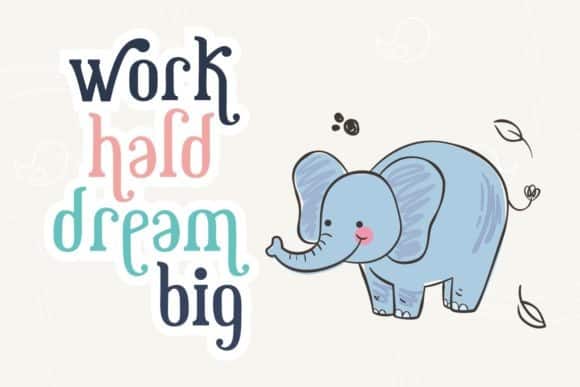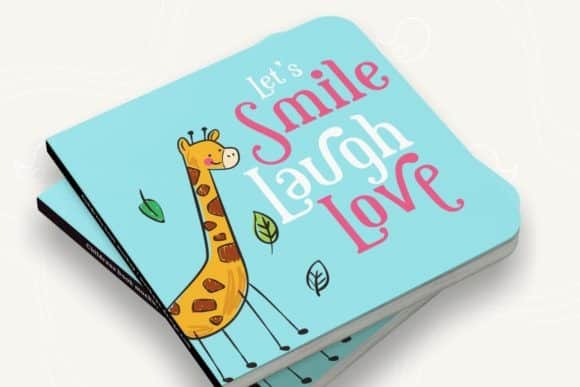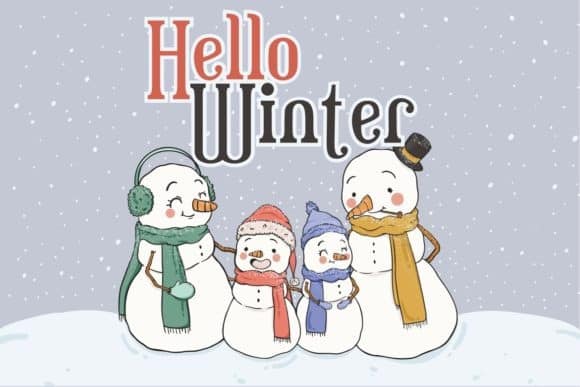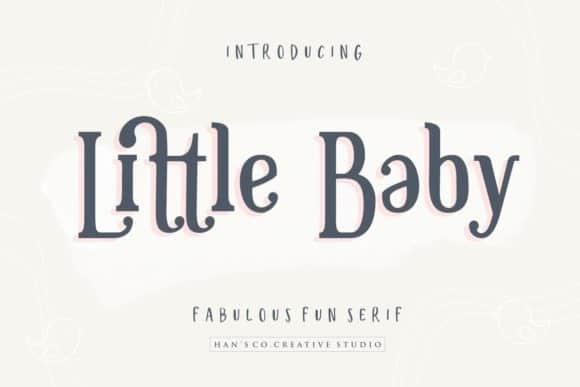
Little Baby Serif Font
Little Baby Serif Font is a very versatile font. It has more alternative character, and multilingual support. Made from font designer named HansCo. you can use this font to make perfect various design like Product Design, Tshirt Design, Card Design, Merchandise Design and many more. Completely with Slant Mode made your design look cool.